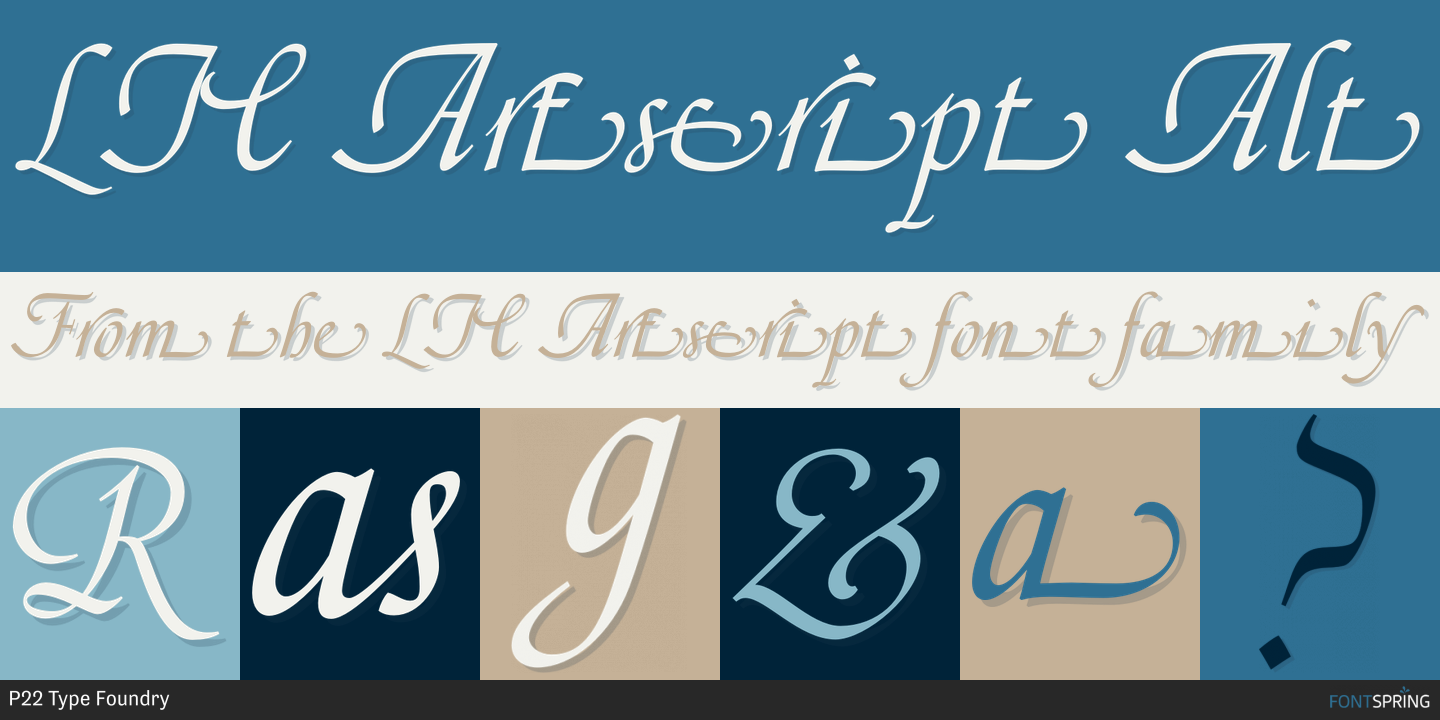
LTC Artscript Alt
Designed by Sol Hess and Paul Hunt, LTC Artscript is a script font family. This typeface has two styles and was published by P22 Type Foundry.
Artscript was Sol Hess’ “attempt to convert into rigid metal the graceful penmanship of the ancient scribe”. This type of script is more common in digital form but when originally released in 1948, it required special handling to avoid breakage. Extensive alternates were added based on original Hess drawings and additional sources.